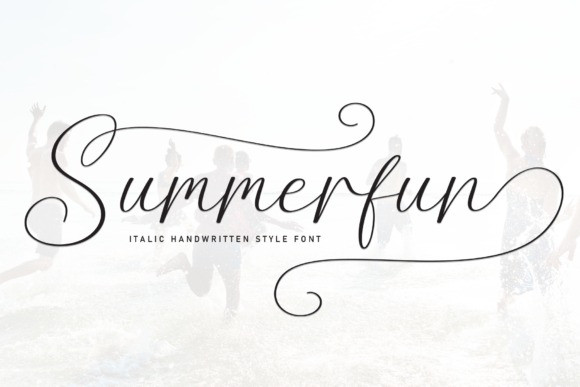
Summerfun Handwriting Font
Summerfun Handwriting Font is a delicate and elegant script font, perfect for wall displays, wedding invitations, social media post, logos, advertisements, product packaging, product designs, labels, photography, watermarks, invitations, stationery,and any project that requires taste handwriting.